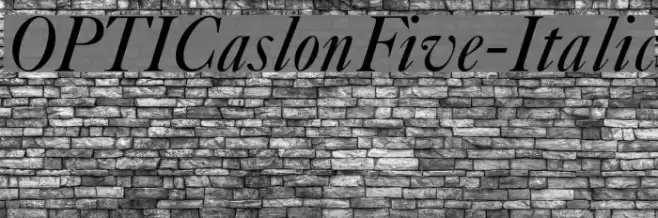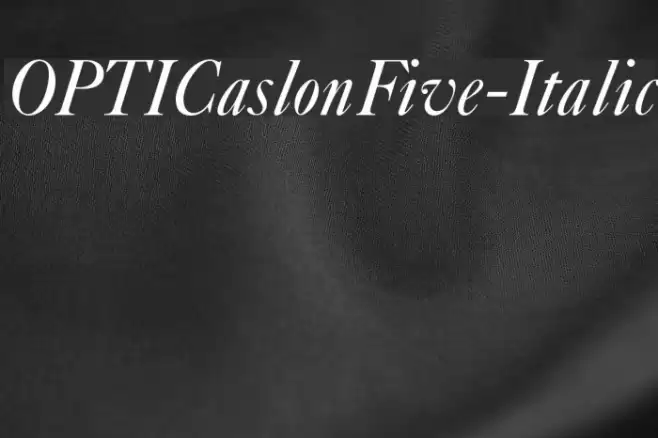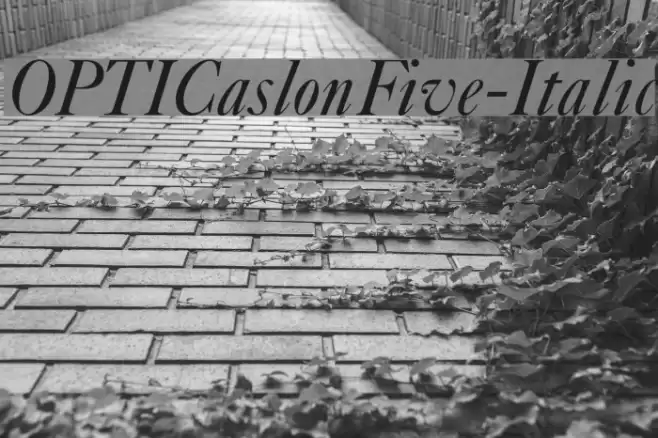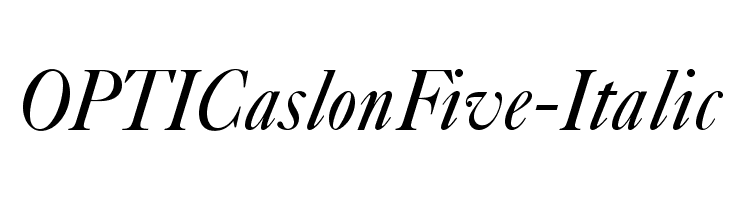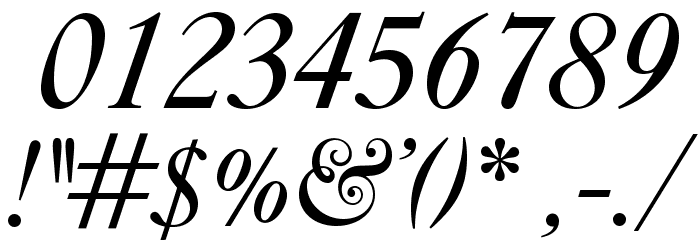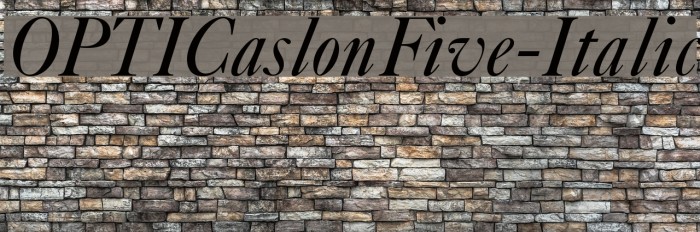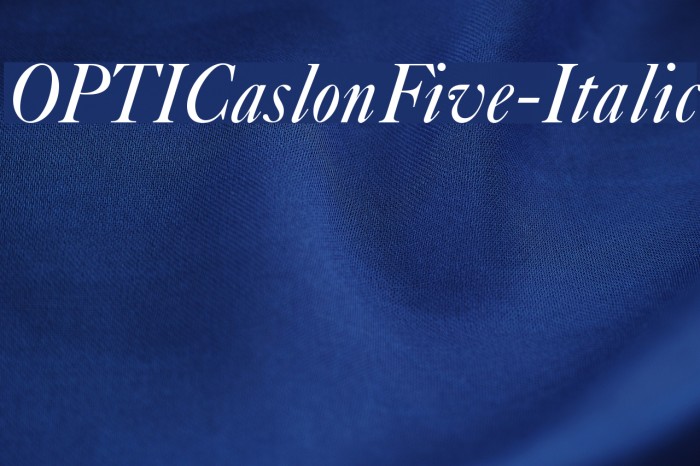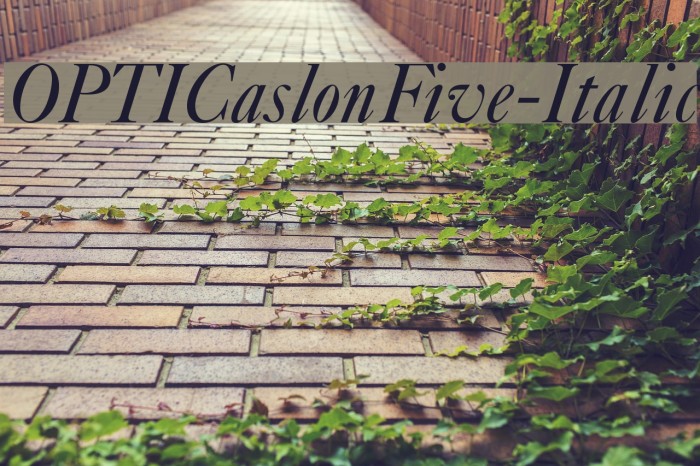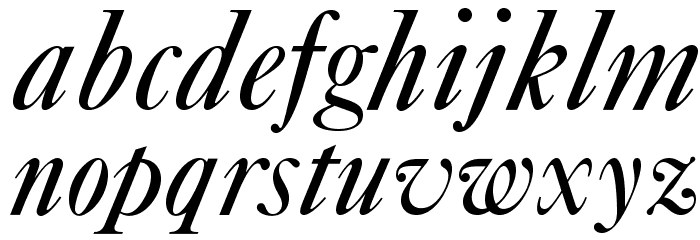
OPTICaslonFive-Italic
This elegant serif font features a classic italic style with smooth, flowing curves and a refined appearance. The letters are slightly slanted, adding a sense of motion and sophistication. The uppercase characters are tall and stately, while the lowercase letters maintain a consistent and harmonious flow. The numerals are well-proportioned, and the special characters are crafted with attention to detail. This font exudes a timeless charm, making it suitable for a variety of formal and creative applications.
An elegant italic serif font with smooth curves and a classic style.
- Proposed Projects: Ideal for wedding invitations, formal documents, luxury branding, and editorial design.
- Category: Serif
- Overall Style: Classic